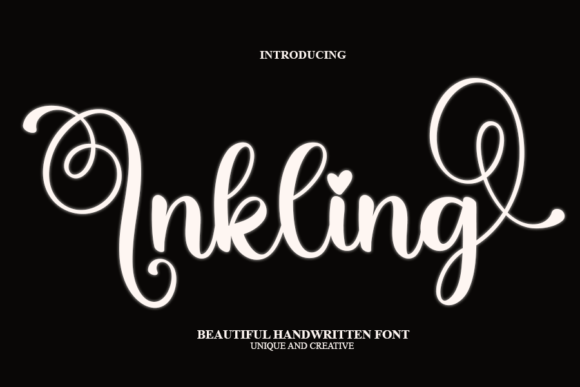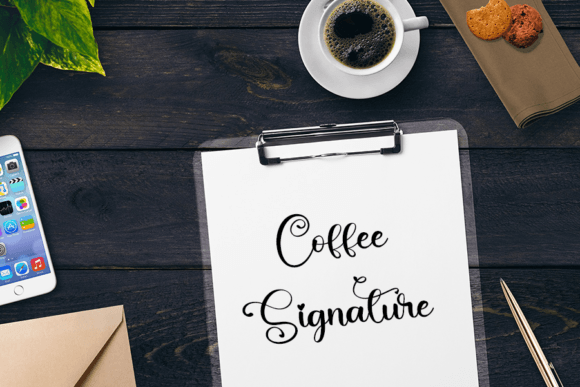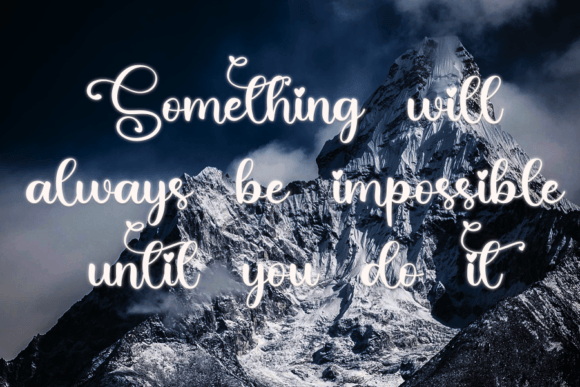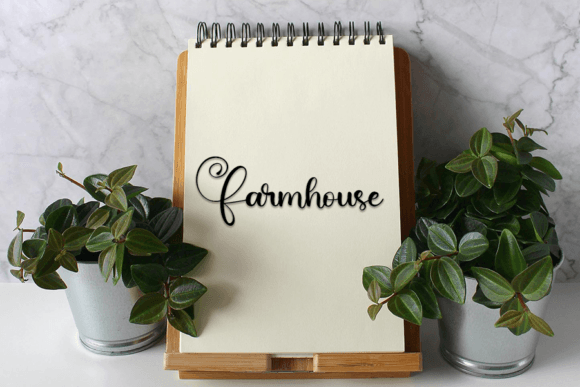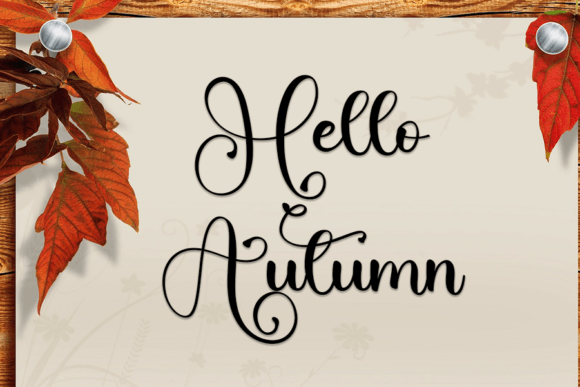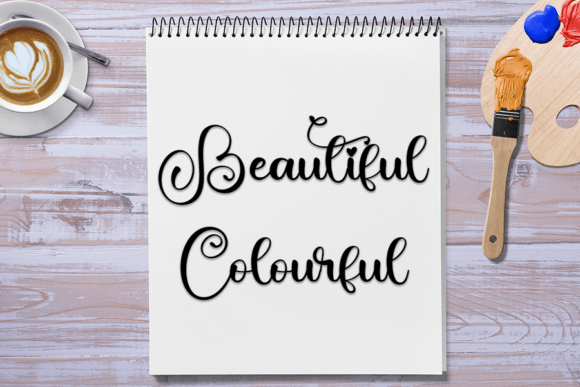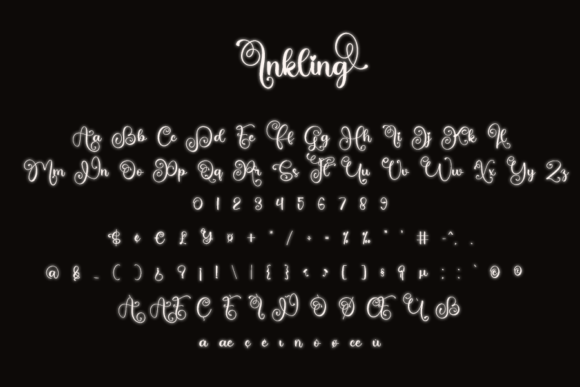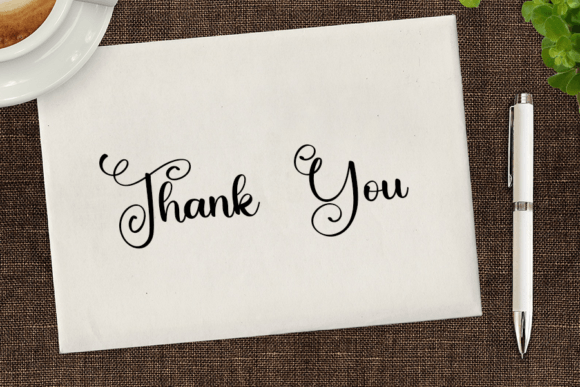
Inkling Font
About Inkling Font
“Inkling” is a stylish handwritten script font that seamlessly combines a modern sensibility with impeccable form, drawing inspiration from the timeless beauty of classic calligraphy. This font strikes a harmonious balance, offering a diverse and well-balanced design that is sure to elevate the visual appeal of your creative projects.
One of the standout features of “Inkling” is its ability to capture the essence of classic calligraphy while infusing it with a contemporary twist. The font’s carefully crafted characters and clean lines pay homage to the timeless art of calligraphy, while its polished and modern appearance adds a refreshing touch.
“Inkling” boasts a well-balanced design that is neither excessively thin nor overly thick. This equilibrium ensures that “Inkling” is a versatile choice suitable for a wide range of design applications. Whether you’re working on print materials, digital graphics, websites, or any other creative endeavor, “Inkling” adapts seamlessly to your needs.
The meticulous craftsmanship and flawless execution of “Inkling” make it a perfect choice for projects where aesthetics and visual impact are paramount. It excels in crafting invitations for special events, creating logos that exude sophistication, or simply enhancing the overall visual appeal of your content.
Furthermore, “Inkling” is more than just a font; it’s a design asset that exudes character and charm. Its handwritten appearance adds a personal and authentic touch to your projects, making them feel warm and inviting. It’s an excellent choice when you want to inject a sense of humanity and approachability into your work.
In conclusion, “Inkling” is a remarkable handwritten script font that effortlessly bridges the gap between classic calligraphy and contemporary design. Its ability to strike a perfect balance between tradition and modernity, its adaptability to various creative projects, and its capacity to infuse a personal touch into your designs make it an invaluable addition to your font collection. Elevate your projects with the timeless elegance and modern vibe of “Inkling” – a font meticulously designed to enhance the beauty of your creations.